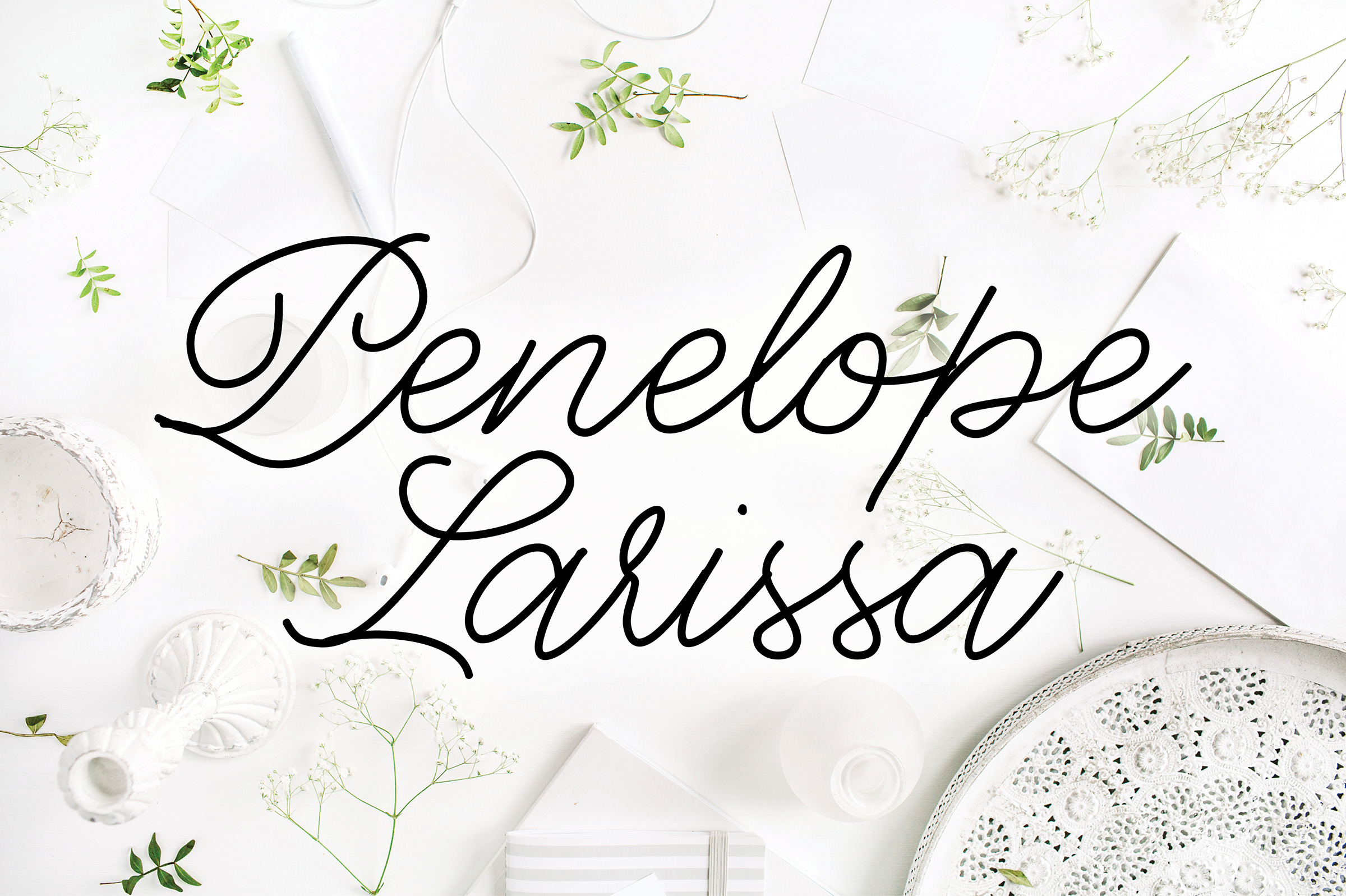
Penelope Larissa Font
This monoline calligraphy font was completely hand lettered with gorgeous flourishes and swirls.
All standard punctuation and numbers are included.